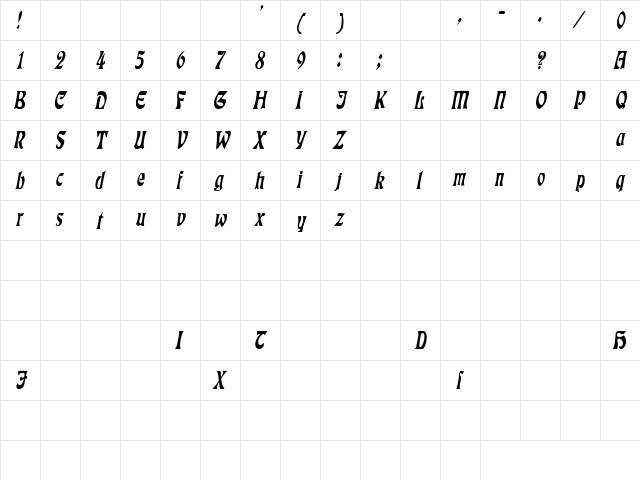
Fender 3 Italic
Design Context for Fender 3 Typeface
Fender 3 offers clean, dependable letterforms without strong stylistic allegiance, making it a practical choice for designers who need flexibility. The dynamic lean of this cut emphasises speed and emphasis in any layout.
Pro Tip: Use Fender 3 for emphasis, pull quotes, and subheadings where its slanted energy can add rhythm to the layout.